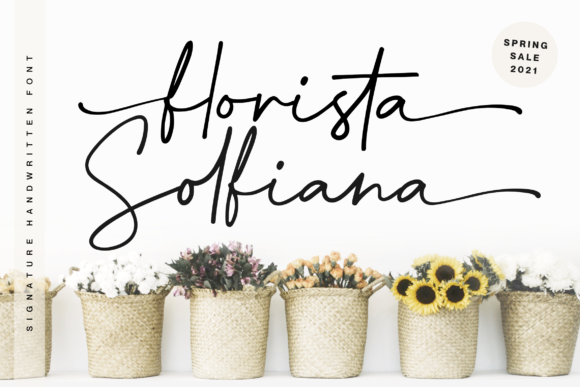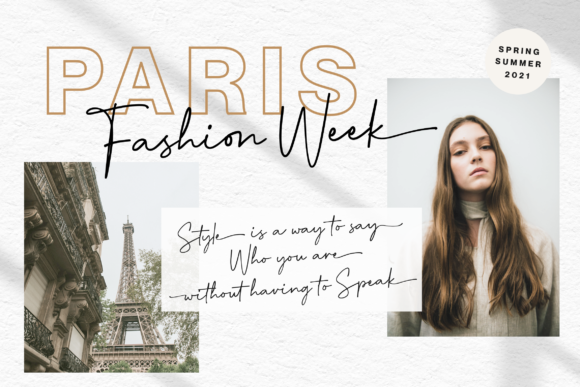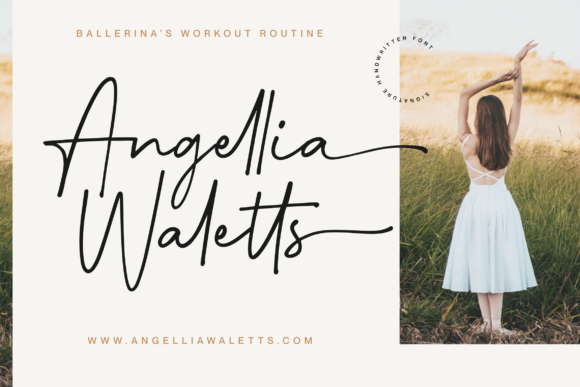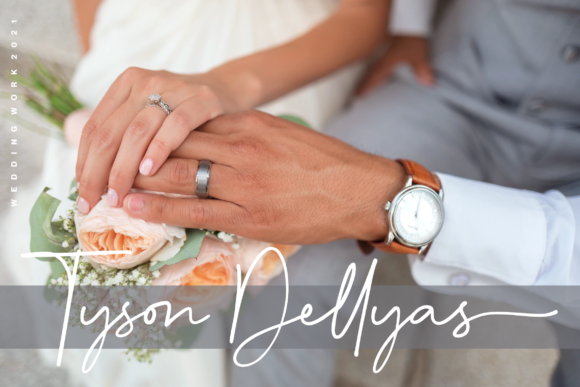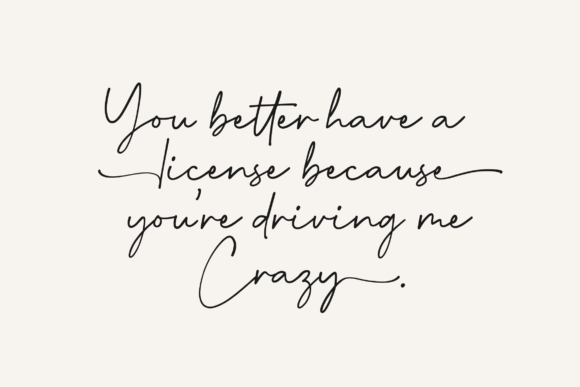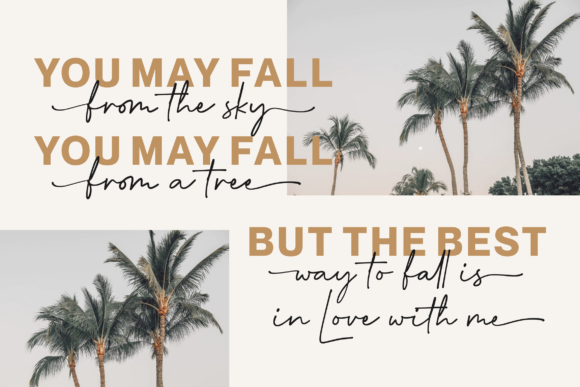
Introduction to Fireheart Font
Remember that moment when you’re brainstorming ideas for a creative project and you stumble upon the perfect font? It’s like the missing piece of a puzzle, elevating your design from good to great. For many designers, that moment often comes when they discover a high-quality font that captures the essence of their vision.
One such font that’s sure to spark inspiration is the Fireheart Font. This lovely script font features charming, playful characters that seem to dance along the baseline, adding a touch of whimsy to any design. Whether you’re working on a free download or a paid project, Fireheart Font is an invaluable design resource that’s sure to make your ideas stand out.
Key Features of Fireheart Font
- High-quality design: The Fireheart Font is designed with precision and care, ensuring a professional and polished look for any creative project.
- Transparent background: The font features a transparent background, allowing for easy customization and flexibility in design.
- High-resolution design: The font is designed at a high resolution, making it suitable for use in large-scale designs and print materials.
- Unique character set: The Fireheart Font features a unique character set, including a range of special characters and symbols, adding an extra layer of creativity to any design.
- Perfect for creative projects: The Fireheart Font is ideal for use in creative projects, such as branding, advertising, and editorial design, where a high-quality, unique font is essential.
Honest Review: Fireheart Font
I recently had the chance to experiment with the Fireheart Font, and I’m excited to share my thoughts with fellow designers.
What works well: ✨ The Fireheart Font has a high quality design that makes it perfect for any creative project. Its unique style and elegant lines make it stand out from other fonts, and the free download option is a huge bonus. The font is also highly versatile, making it suitable for a wide range of design needs.
What doesn’t work so well: ⚠️ While the Fireheart Font is a great resource, I found that it lacks a transparent background option. This can make it difficult to use in certain design situations, such as when you need to place text over a background image.
Overall, I’m impressed with the Fireheart Font. It’s a great addition to any design library, and its free download option makes it an accessible resource for designers of all levels. However, the lack of a transparent background option is a limitation that may prevent some designers from using it in certain situations.
- High-quality design perfect for creative projects
- Highly versatile
- Lacks transparent background option
Use the Fireheart Font in combination with other design elements to create a unique and eye-catching design. Experiment with different font sizes, colors, and styles to find the perfect look for your creative project.
The Fireheart Font is perfect for a variety of design projects, including logos, business cards, and social media graphics. Its high-quality design and transparent background make it a versatile design resource for any creative project.